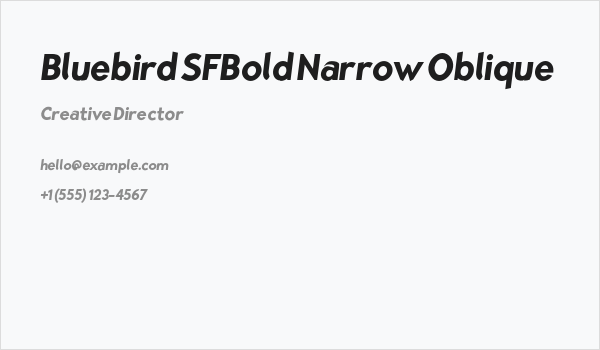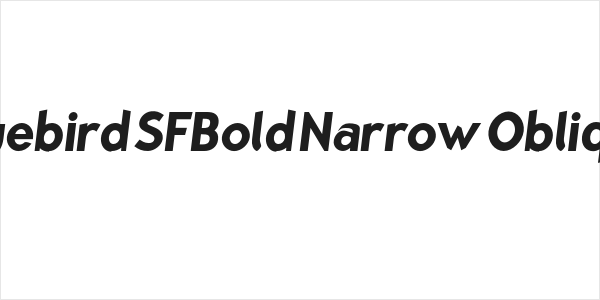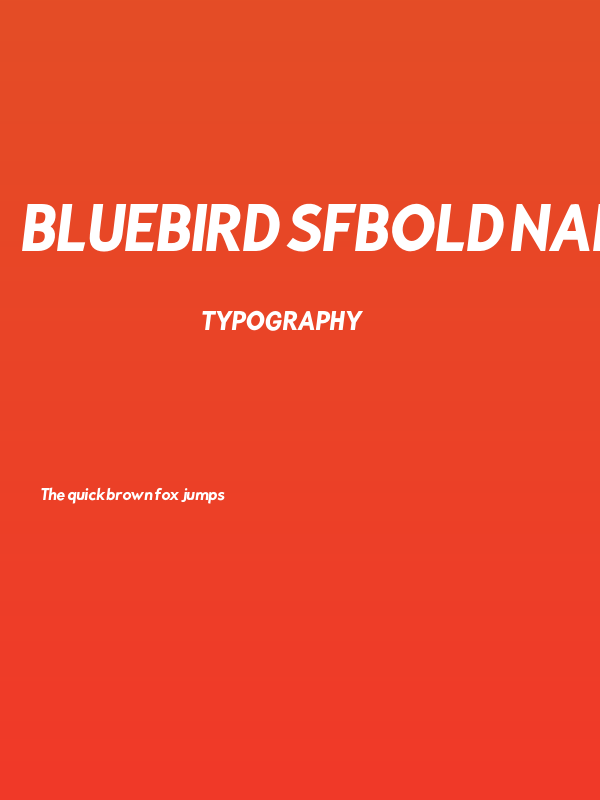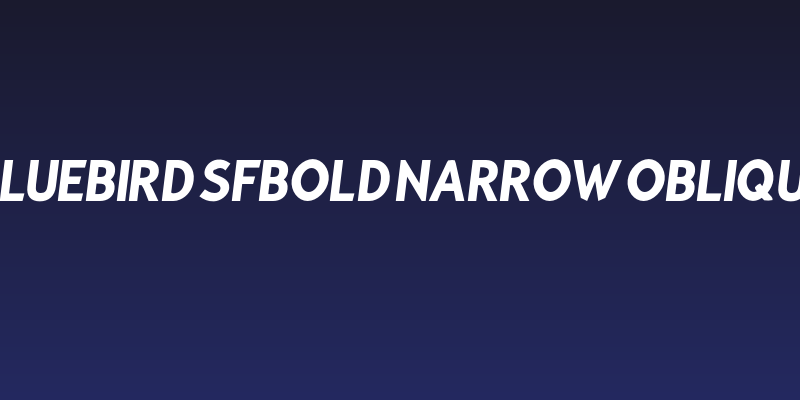
Bluebird SFBold Narrow Oblique Font
Bluebird SFBold Narrow Oblique Description
This font exhibits a bold and narrow design with an oblique slant, giving it a dynamic and modern appearance. The uppercase and lowercase letters are well-proportioned, maintaining a consistent weight throughout. The numerals are clear and easy to read, making them suitable for various applications. Special characters are distinct and harmonize well with the overall style. The font's narrow width and oblique angle contribute to its sleek and contemporary look, ideal for making a strong visual impact.
| Use Case | Headlines, Logos, Advertising |
| Proposed Projects | Ideal for branding, advertising, headlines, and any project requiring a bold and modern typeface. |